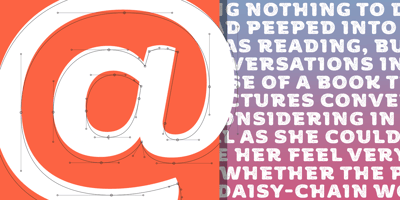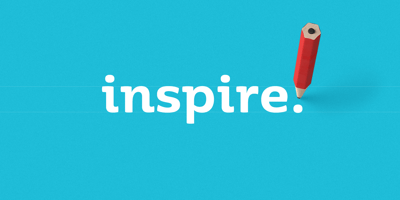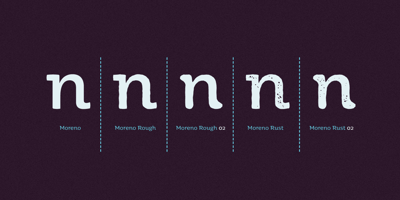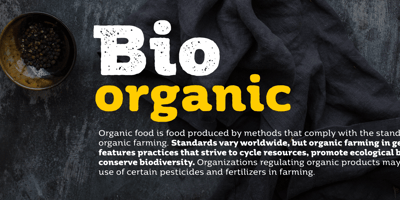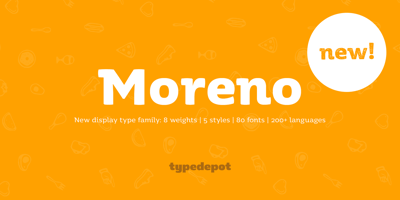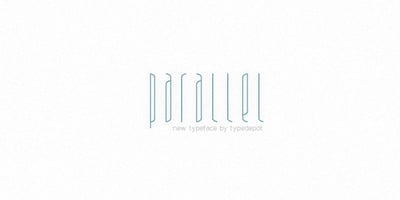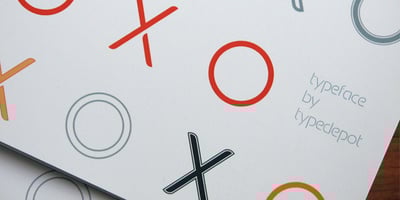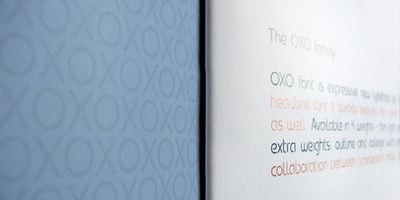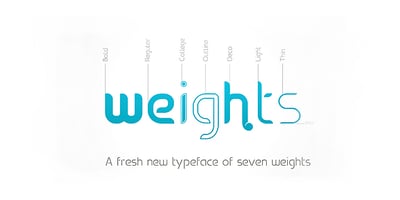
Typedepot
Typedepot co-founders Alexander Nedelev and Veronika Slavova say, “In the beginning, Typedepot was a side project, nothing serious – just experimenting with letterforms. Then, in a moment it just felt more right to do this than anything else.”
Based in Sofia, Bulgaria, the duo first came upon type design while working as graphic designers in advertising. “We had absolutely no background in type design,” Alexander says, “but we had this project, a logotype for a small company, which we developed to become the Glide typeface.” Two years later they rented an office, took the plunge and started designing type full time. “Now it’s the thing we do and the thing we love to do.”
So far they’ve seen great success with Best Seller Centrale Sans. The modern sans serif typeface was featured as one of MyFonts Most Popular Fonts of 2011 and was featured in our Rising Stars Newsletter that same year.
The self-taught designers whose foundry started out as a way to experiment with type, say that their main focus is “to design original typefaces for retail and custom use.”